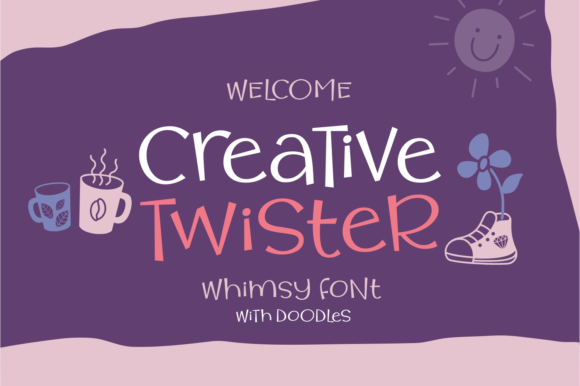
Creative Twister Font
Behold, Creative Twister Font, a captivating handwritten serif font that will inject a dash of charm and whimsy into your designs, courtesy of the brilliant Situjuh. Its playful personality shines through in every stroke, enchanting your creations with a touch of magic and imagination.
Journey into a world where letters dance with grace and elegance, adorned with enchanting doodles that ignite your inner child. Creative Twister is not just a font; it's an artistic expression that transforms your words into captivating tales. Its unique and captivating style will leave an indelible mark on your audience, captivating their attention and igniting their imagination.
Unleash your creativity and let the Creative Twister Font guide you to new heights of design excellence. Its curves and flourishes flow effortlessly, adding a touch of whimsy and delight to your projects. Whether you're creating stunning logos, captivating social media posts, or eye-catching branding materials, this font is your secret weapon to captivate and inspire.
With Creative Twister, you'll discover a font that speaks to your soul and resonates with your audience. Its versatility knows no bounds, effortlessly adapting to a multitude of design styles and themes. From playful and whimsical to elegant and sophisticated, Creative Twister seamlessly blends into your vision, amplifying your message and leaving a lasting impression.
So, embark on an enchanting journey with Creative Twister Font. Let its whimsical charm and captivating doodles transform your designs into masterpieces that capture hearts and minds. Download Creative Twister today and unlock a world of boundless creativity and imagination.